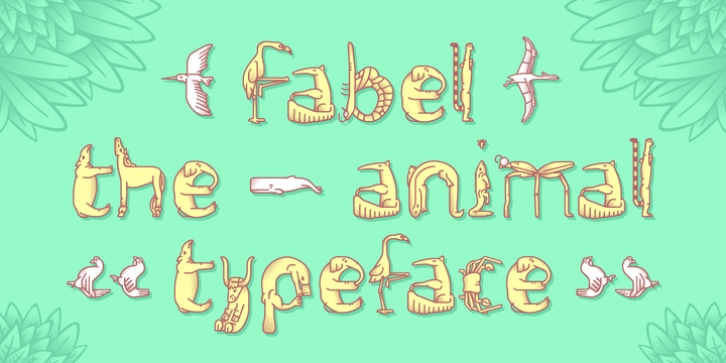
Fabel was designed by Arthur Reinders Folmer and published by Typearture. Fabel contains 3 styles and family package options.
It's the animal kingdom at your fingertips: Fabel gives you the world's fauna, wrapped up in a typeface! Over 300 detailed, characterful illustrated glyphs fill out the alphabet, from the A of Anteater to the Z of Zander. The diversity of Earth's wildlife is captured in the most complete animal alphabet to date: With a full Latin characters set in upper AND lower case, a large range of punctuation, mathematical symbols, tabular and old-style numerals and much, much more!
Showcasing animals from all the corners of the world, Fabel goes beyond the basic Latin A-Z. Each character has it's own diacritics and language specific characters merge language and habitat into one glyph: The IJ is shaped as a Dutch Keeshond and Scandinavian characters such as the Ø and Å take the form of a Reindeer, and Arctic Fox.
But also the punctuation of Fabel merges glyph, context and animal, keeping the theme of an animal font true in all characters: A snail replaces the period, the monster of Loch Ness is a big question mark, the ampersand merges Elephant and Tapir and the lemniscate poses the question: What came first: The chicken or the egg?
· Fabel Filled
· Fabel Inner
· Fabel Line